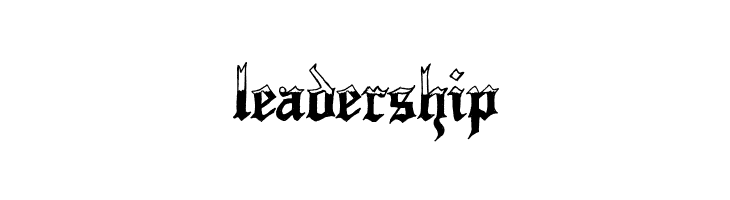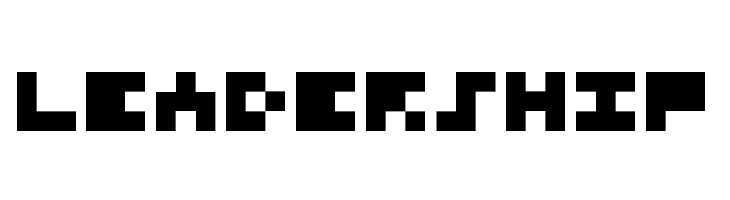
• Minerva Italic
• Miniozma Regular
A bold, pixelated font with a retro digital style.
• miniquest
A playful, handwritten font with bold, irregular strokes and a casual style.
• miniquest Bold
A bold, handwritten font with a playful and dynamic style.
• miniquest Italic
A bold, italicized handwritten font with dynamic strokes and lively contrast.
• Minneapolis
A hand-drawn, casual font with an organic and lively appearance.
• Minnesota Winter Regular
A classic blackletter font with intricate, ornate letterforms and historical elegance.
• MinusPlus
A playful, bold, and cartoonish font with a hand-drawn, outlined style.
• Miriam
• Misdemeanor
A bold, distressed font with a spray-painted, urban aesthetic.
• Mission GT-R
A bold, futuristic font with geometric shapes and sharp angles.
• Mission GT-R Condensed
A bold, geometric, and modern font with a condensed width and high legibility.
• Mission GT-R Condensed Italic
A bold, condensed, and italicized font with a modern, futuristic style.
• Mission GT-R Hollow
A modern, geometric hollow font with a futuristic and technical design.
• Mission GT-R Hollow Condensed
A bold, geometric font with a hollow interior and condensed width, offering a modern and futuristic look.
A hollow, condensed, and italicized font with a futuristic and dynamic style.
• Mission GT-R Hollow Italic
A modern, italicized, hollow font with a futuristic and dynamic style.
• Mission GT-R Italic
A bold, italicized font with a futuristic and sporty design.
• Mitraa
An artistic and modern font with elegant curves and unique character shapes.
• Mitraa Bold
A bold, modern font with thick strokes and a strong presence.
• Mixed Silhouettes Free
• MixedThirty
A playful, eclectic font with bold, varied characters and a whimsical style.
• MixOne